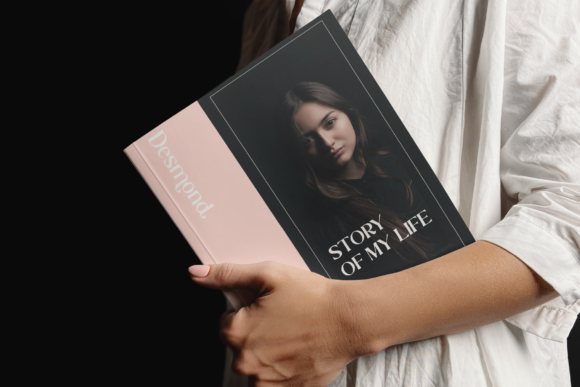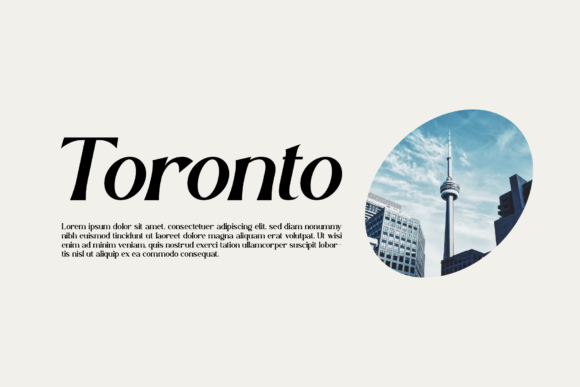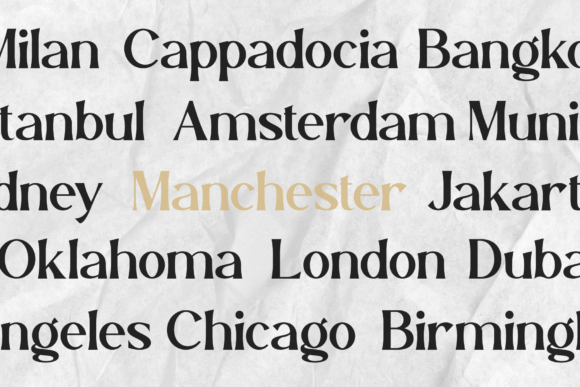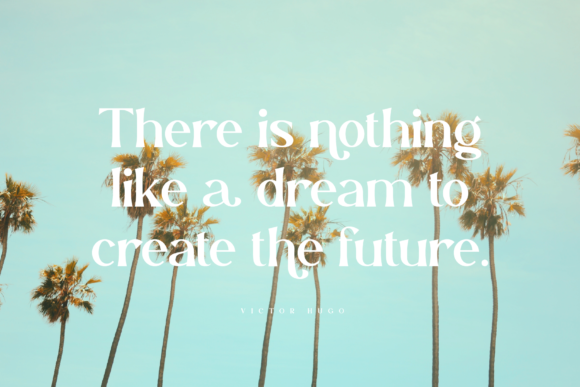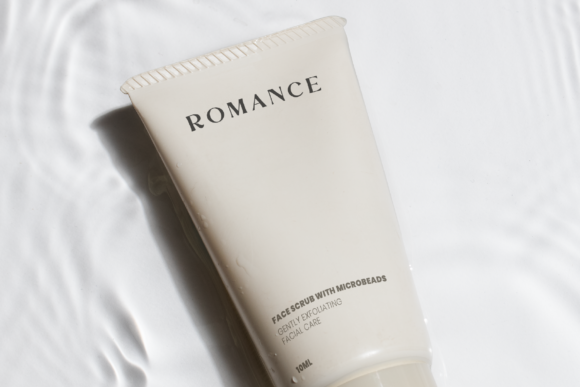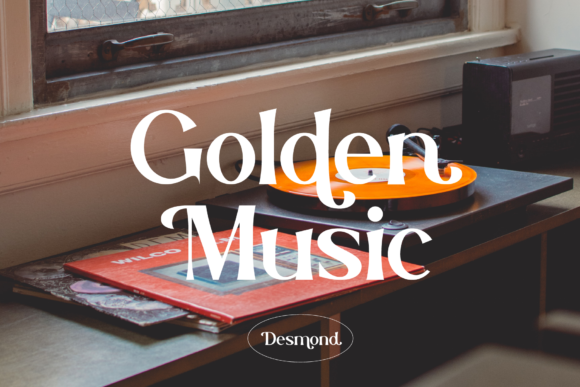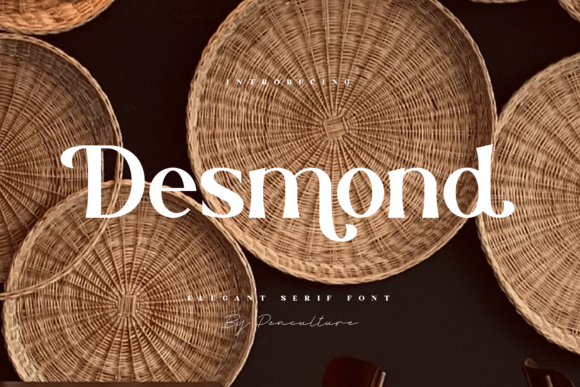
Introducing Desmond Font: Elevate Your Designs with Elegance and Sophistication
Are you on the hunt for a font that exudes elegance, sophistication, and a touch of retro charm? Look no further than Desmond Font. This stunning display font is perfect for designers and crafters seeking to add a dash of luxury to their branding, logo design, websites, fashion magazines, posters, and other creative projects.
The Essence of Desmond Font
Desmond Font boasts a chic retro style that is sure to captivate your audience. Its elegant design makes it an ideal choice for projects that require a high-end feel. Whether you’re working on a luxury brand’s logo, a fashion magazine’s cover, or a stylish website, Desmond Font is the perfect companion to help you achieve your design goals.
Multiple Beautiful Alternates at Your Fingertips
One of the standout features of Desmond Font is its extensive range of beautiful alternates. With multiple options to choose from, you can easily experiment with different styles to find the perfect fit for your project. These alternates are easily accessible, allowing you to seamlessly integrate them into your design. This versatility makes Desmond Font an excellent choice for designers who value flexibility and creativity.
Desmond Font is PUA (Private Use Area) encoded, which means that accessing all the glyphs and swashes is a breeze. This encoding allows you to unlock the full potential of the font, giving you the freedom to experiment with various design elements. With PUA encoding, you can easily insert glyphs and swashes into your design, taking your project to the next level.
Desmond Font’s impressive feature set makes it suitable for a wide range of design applications. Here are some ideas to get you started:
- Branding: Create a lasting impression with a custom logo that showcases your brand’s personality.
- Logo Design: Craft a unique and memorable logo that sets your business apart.
- Websites: Elevate your website’s typography with Desmond Font’s elegant and sophisticated style.
- Fashion Magazines: Add a touch of glamour to your magazine’s cover and interior design.
- Posters: Create eye-catching posters that showcase your message in style.
- Other Creative Ideas: Explore the world of packaging design, business cards, brochures, and more.
Why Choose Desmond Font?
With so many fonts available, why choose Desmond Font? Here are just a few reasons why designers and crafters love this elegant display font:
- Elegant Design: Desmond Font’s chic retro style adds a touch of sophistication to any design.
- Flexibility: With multiple alternates and PUA encoding, you have endless design possibilities at your fingertips.
In conclusion, Desmond Font is a stunning display font that offers elegance, sophistication, and versatility. With its chic retro style, multiple beautiful alternates, and PUA encoding, it’s the perfect choice for designers and crafters seeking to elevate their designs. Whether you’re working on a luxury brand, fashion magazine, or website, Desmond Font is sure to make a lasting impression. So why wait? Discover the world of Desmond Font today and take your designs to new heights!